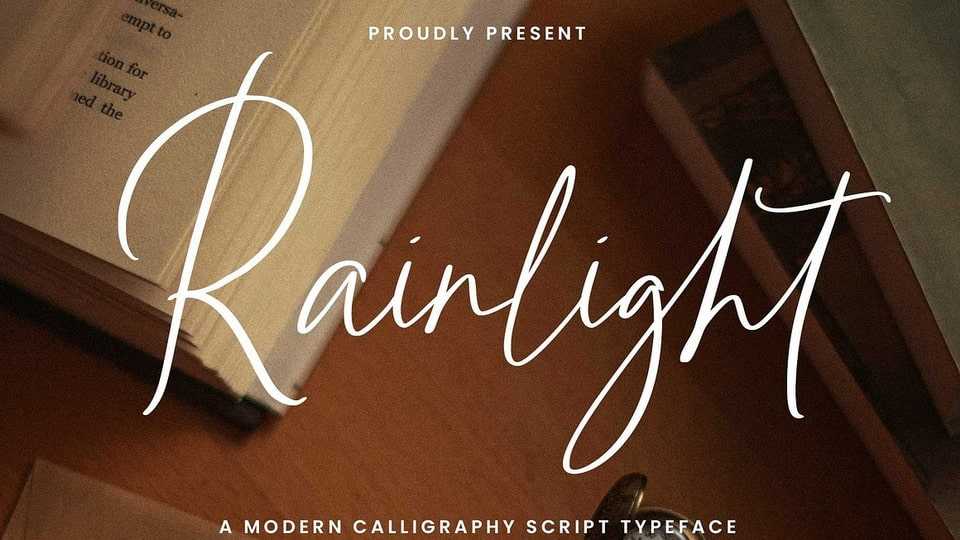
Download Rainlight font, a beautiful handwritten script, joyfully crafted with clean strokes and bouncy letterforms that resemble natural handwriting.